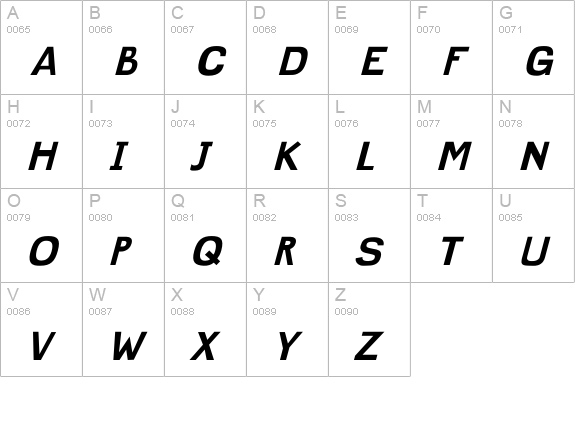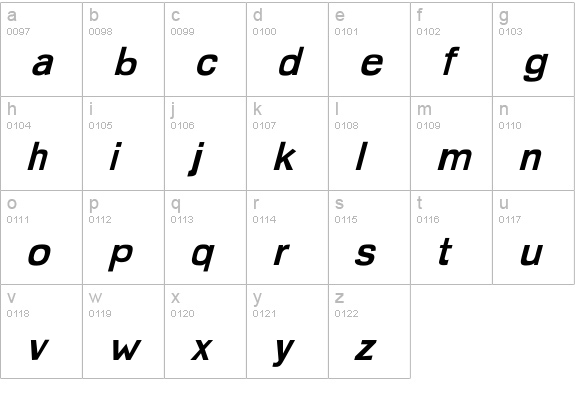
Imperfect-BoldOblique Font Details
Imperfect-BoldOblique font is a stunning display typeface that effortlessly captures attention with its unique blend of imperfection and boldness. Its oblique slant adds a touch of dynamism and modernity, making it perfect for eye-catching headlines, posters, and logos. With its distinct character and confident presence, Imperfect-BoldOblique stands out from the crowd, delivering a powerful visual impact that demands attention. This font is designed to make a statement, conveying a sense of boldness and creativity that will elevate any design project to new heights. Imperfect-BoldOblique font is freely available to download at FontsMarket.com. This means that designers and creatives can easily access this exceptional font without any cost, making it a valuable asset for both personal and commercial use. With its accessibility, designers can explore the endless possibilities of this font and incorporate it into their projects with ease. Whether you're looking to add a touch of edginess to your brand identity, create captivating headlines, or design impactful marketing materials, Imperfect-BoldOblique font is the perfect choice. Its free availability at FontsMarket.com ensures that designers have the opportunity to enhance their creations and bring their visions to life, without any limitations. Download Imperfect-BoldOblique font today and unleash its boldness, creativity, and uniqueness in your designs. Let this font be the driving force behind your next remarkable project, as it effortlessly captures attention and leaves a lasting impression.